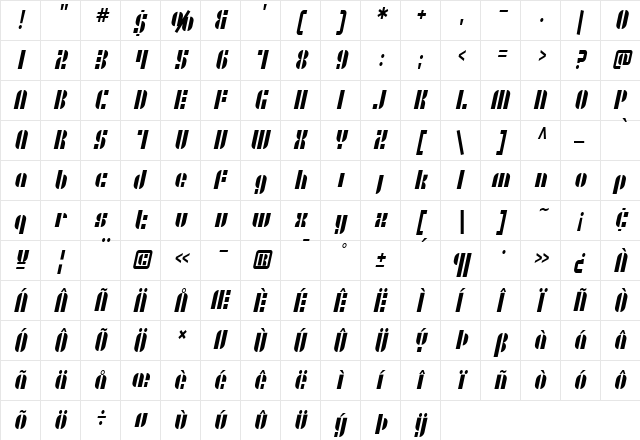
SF RetroSplice Condensed Regular
| Foundry | ShyFoundry |
| Designer | Derek Vogelpohl |
Design Context for SF RetroSplice Condensed Typeface
SF RetroSplice Condensed has the warm character of retro typography — evoking diners, record sleeves, and the golden age of print advertising.
Perfect for vintage-inspired branding, retro packaging, nostalgia campaigns, and period-accurate editorial design.
Font Pairing: Combine SF RetroSplice Condensed with a simple slab or neutral sans — period-accurate companions reinforce the vintage feel without competing for attention.
Pro Tip: Use SF RetroSplice Condensed for headlines and pull quotes rather than body copy — its personality is best appreciated in short, focused bursts.